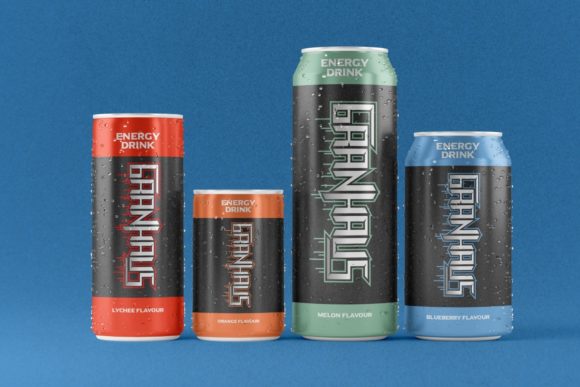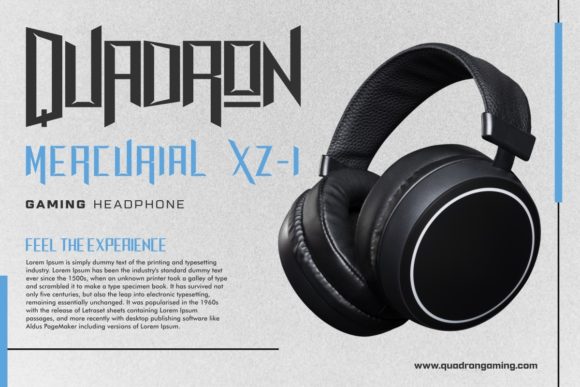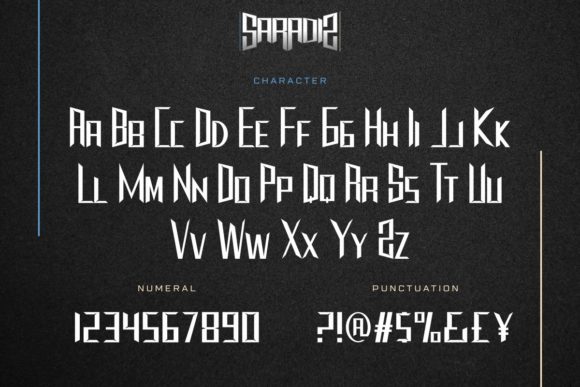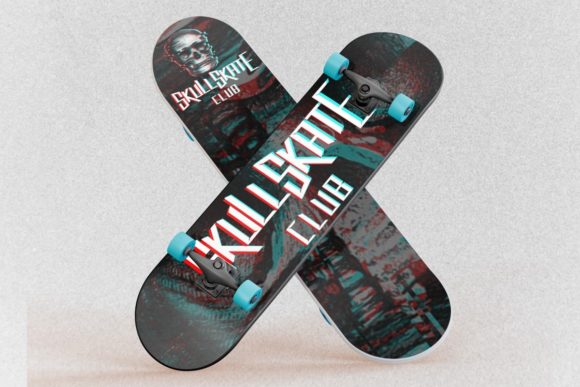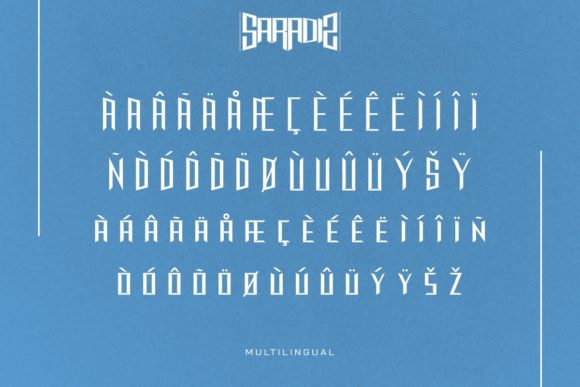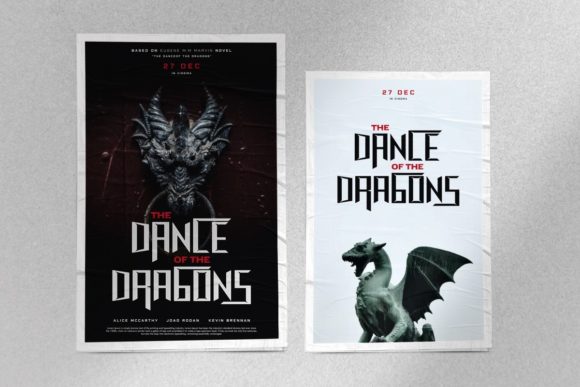
Introduction to Saradiz Font
Saradiz is a unique modern sans serif display font with awesome style characters.
It will work for games, technology, events, spaceship, and modern things The font is perfect for many projects, headlines, logos, posters, titles, products, etc.
Key Features of Saradiz Font
Why Choose Saradiz Font?
Saradiz Font offers exceptional quality and versatility, making it a valuable addition to your design toolkit. Whether you’re creating for personal projects or commercial use, Saradiz Font delivers professional results.